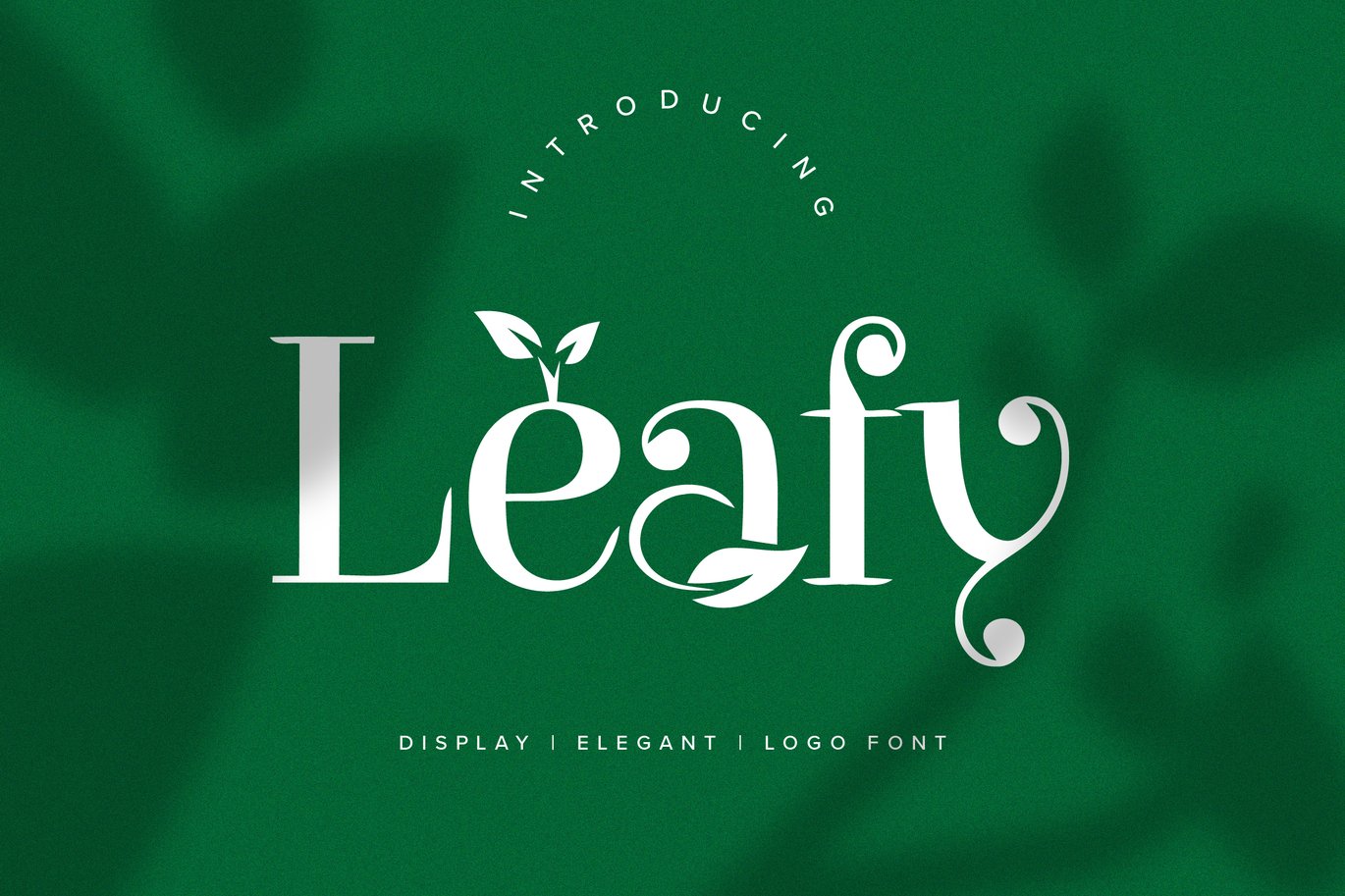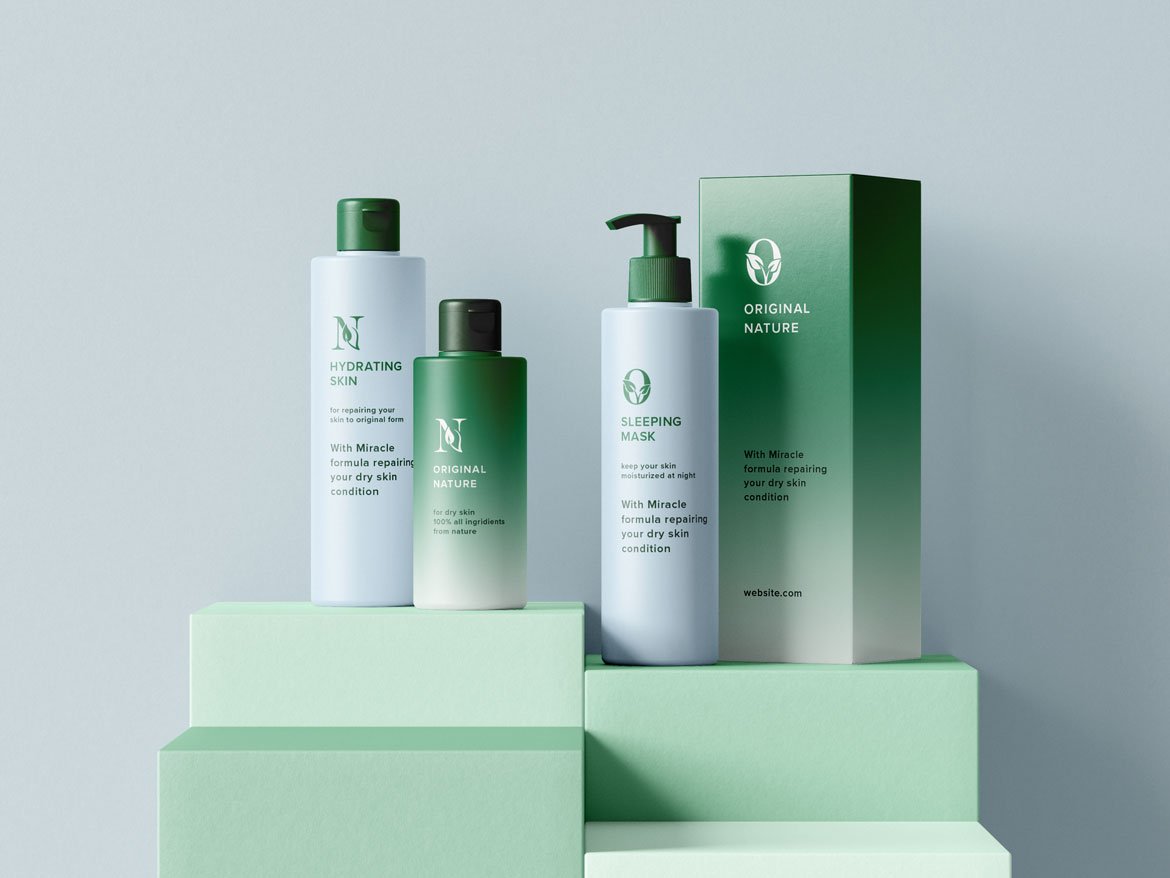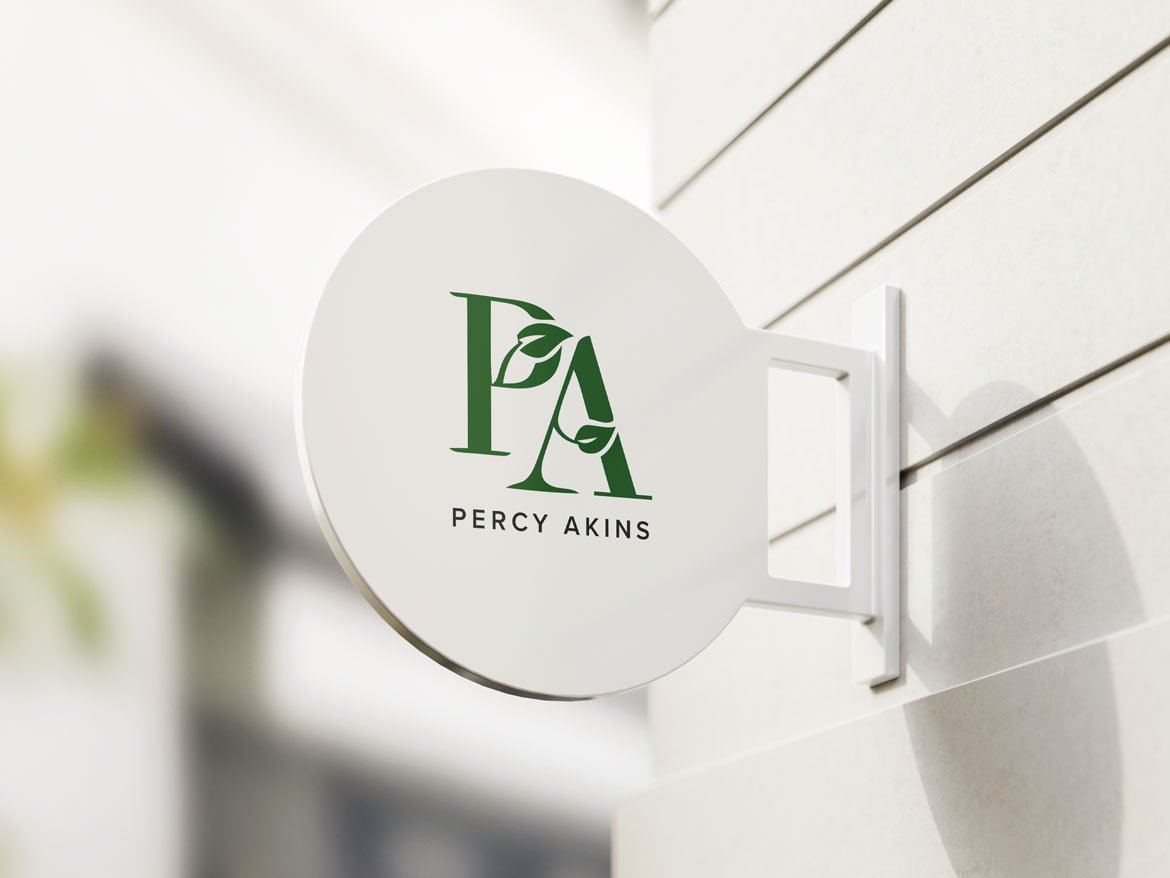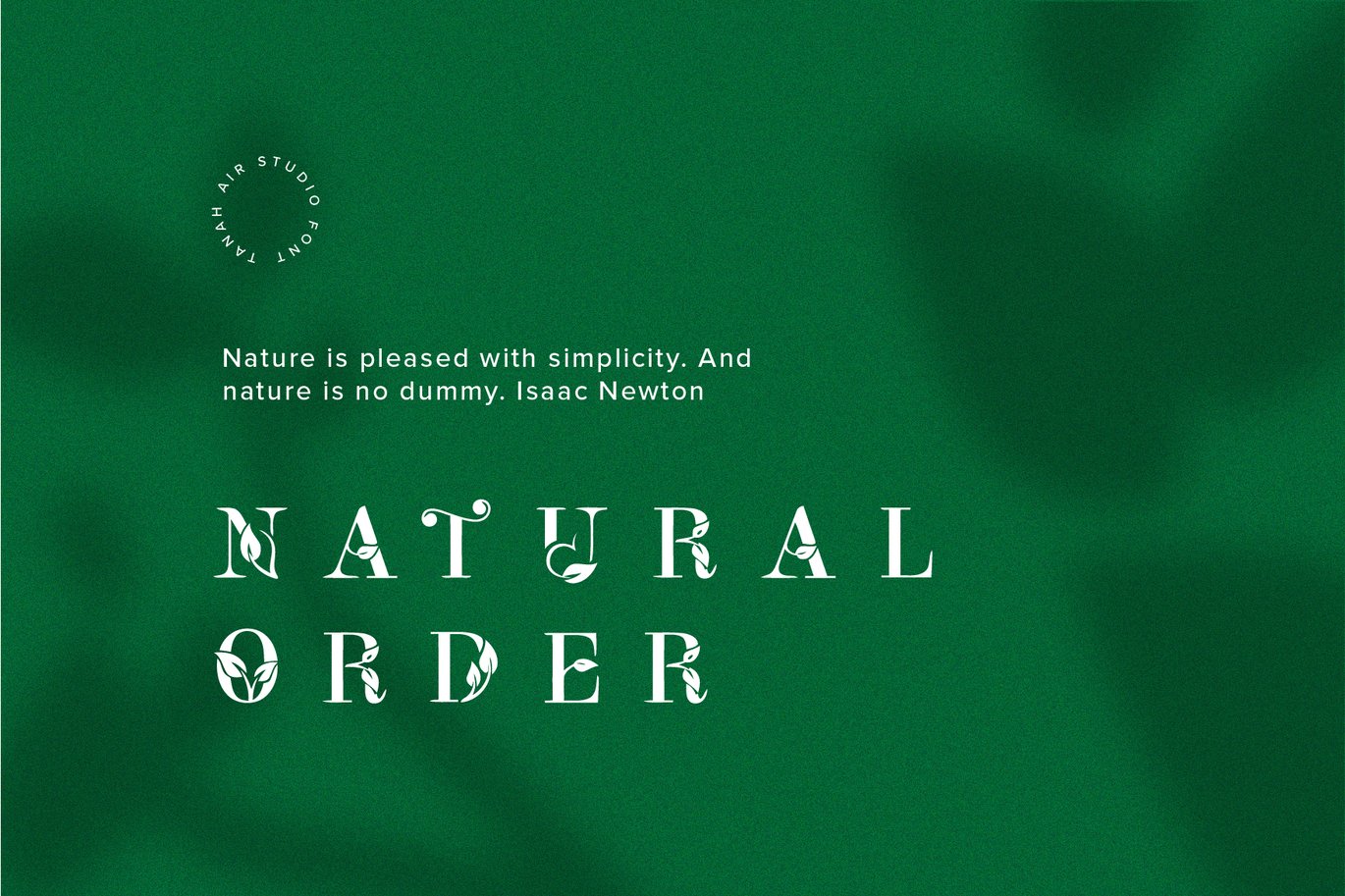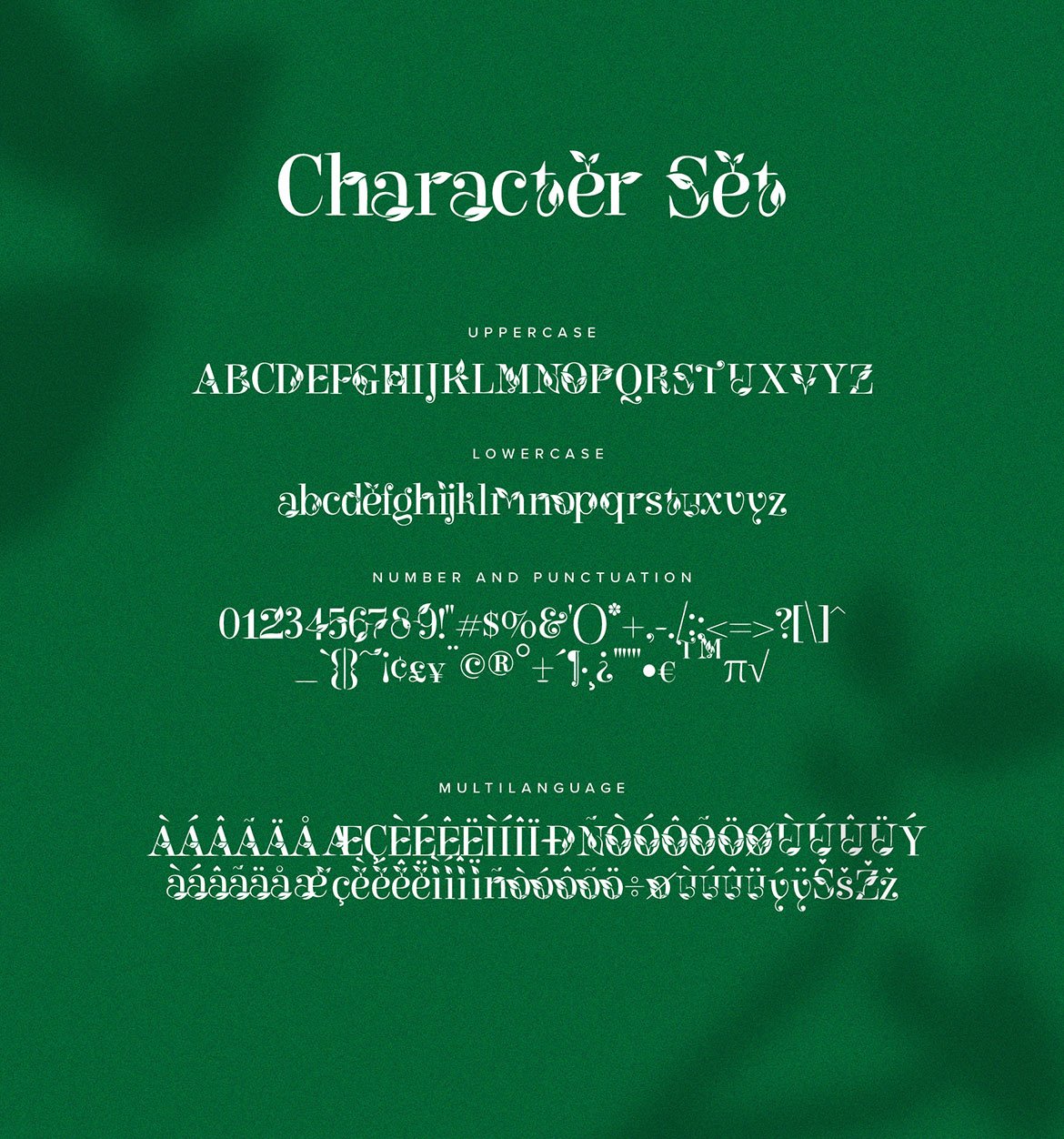
Leafy Logo Font
Leafy is a logo display font created with environmental theme in mind. It features a unique style and will add a friendly feel to your upcoming projects. Get inspired by its authentic feel and use it to create beautiful poster, product packaging or logo and many more!
Special Character/ Alternate Glyphs included